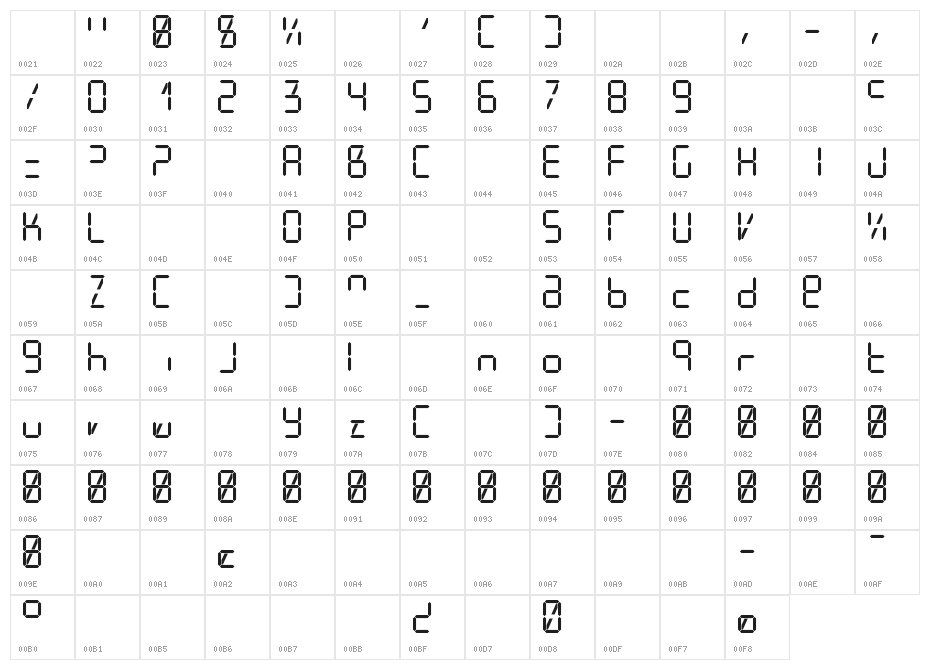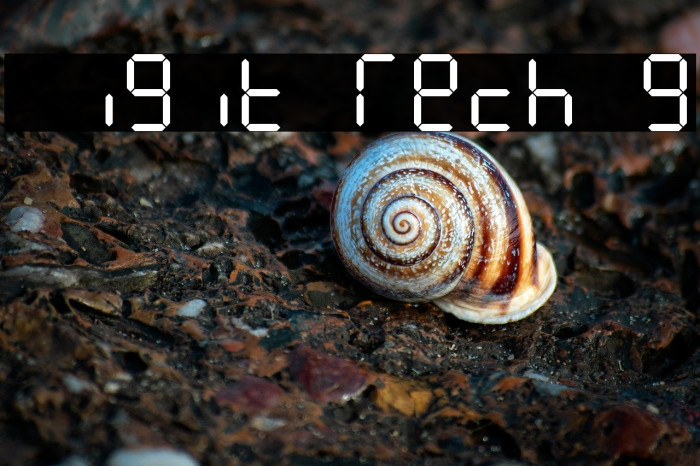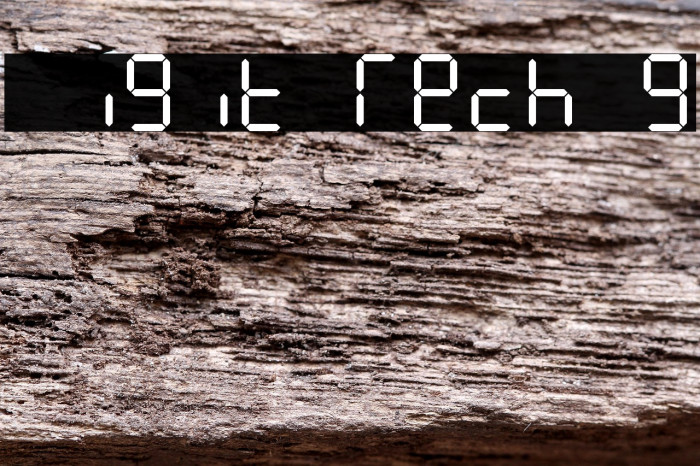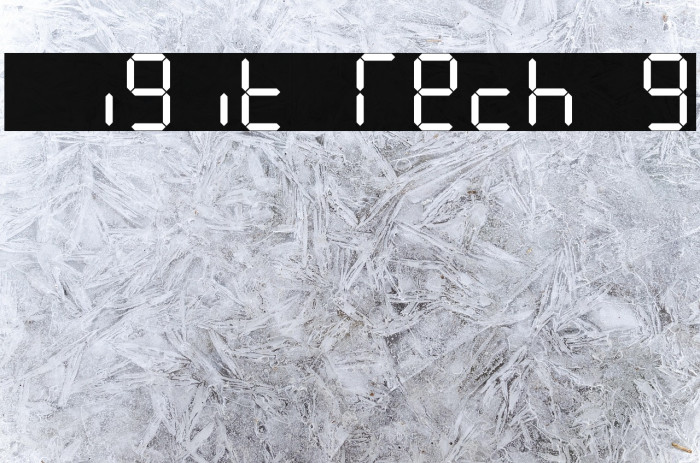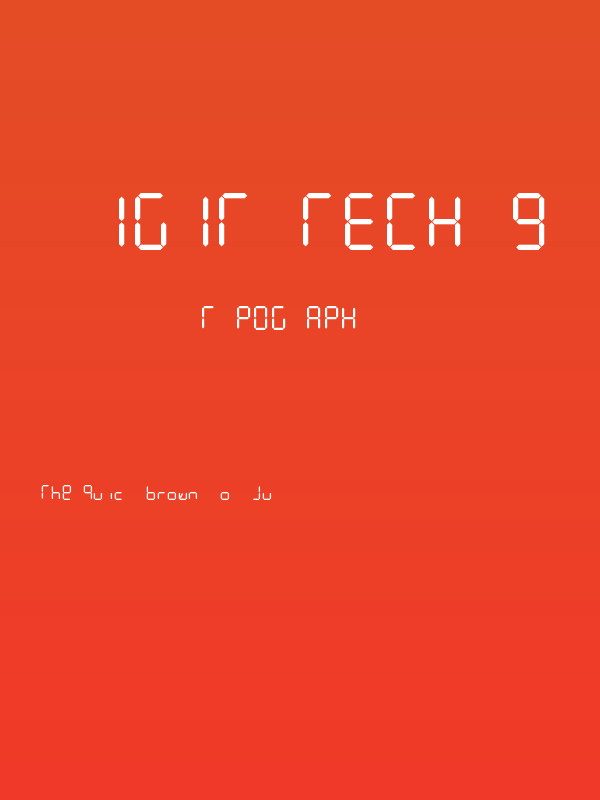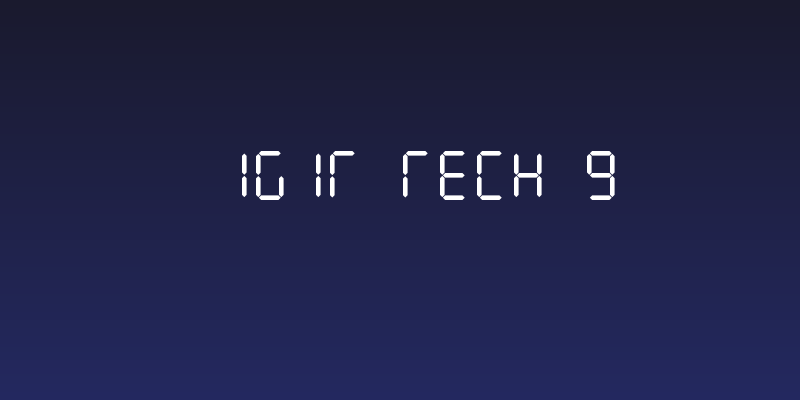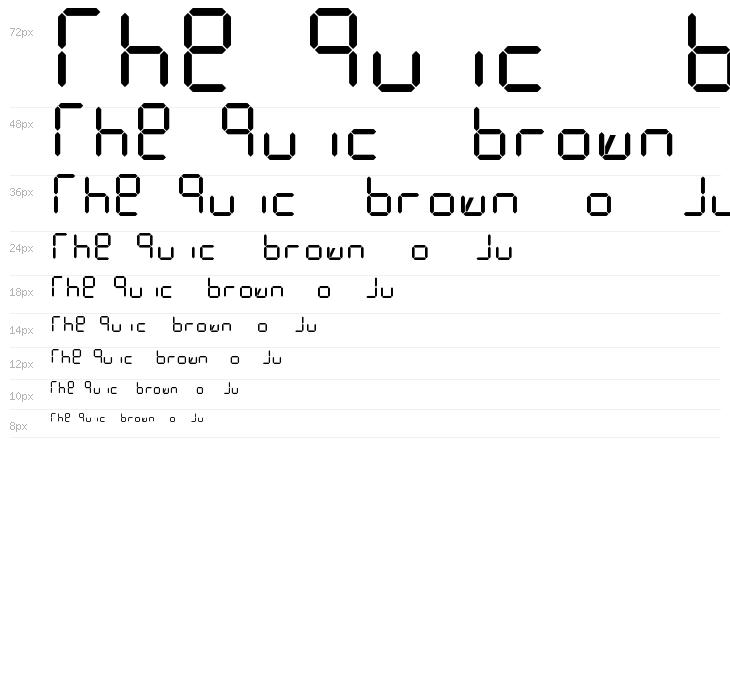
Digit Tech 9 Font
Digit Tech 9 Description
This font features a digital, tech-inspired design reminiscent of classic seven-segment displays found on digital clocks and calculators. Each character is composed of straight lines and sharp angles, creating a futuristic and mechanical appearance. The uppercase and lowercase letters maintain a consistent geometric style, while the numbers and special characters follow the same segmented pattern, enhancing the cohesive digital aesthetic. The font's uniformity and precision make it ideal for conveying a sense of technology and modernity.
| Use Case | Headlines, Logos, Digital displays |
| Proposed Projects | Ideal for digital interfaces, tech-related branding, futuristic designs, and any project requiring a modern, electronic feel. |